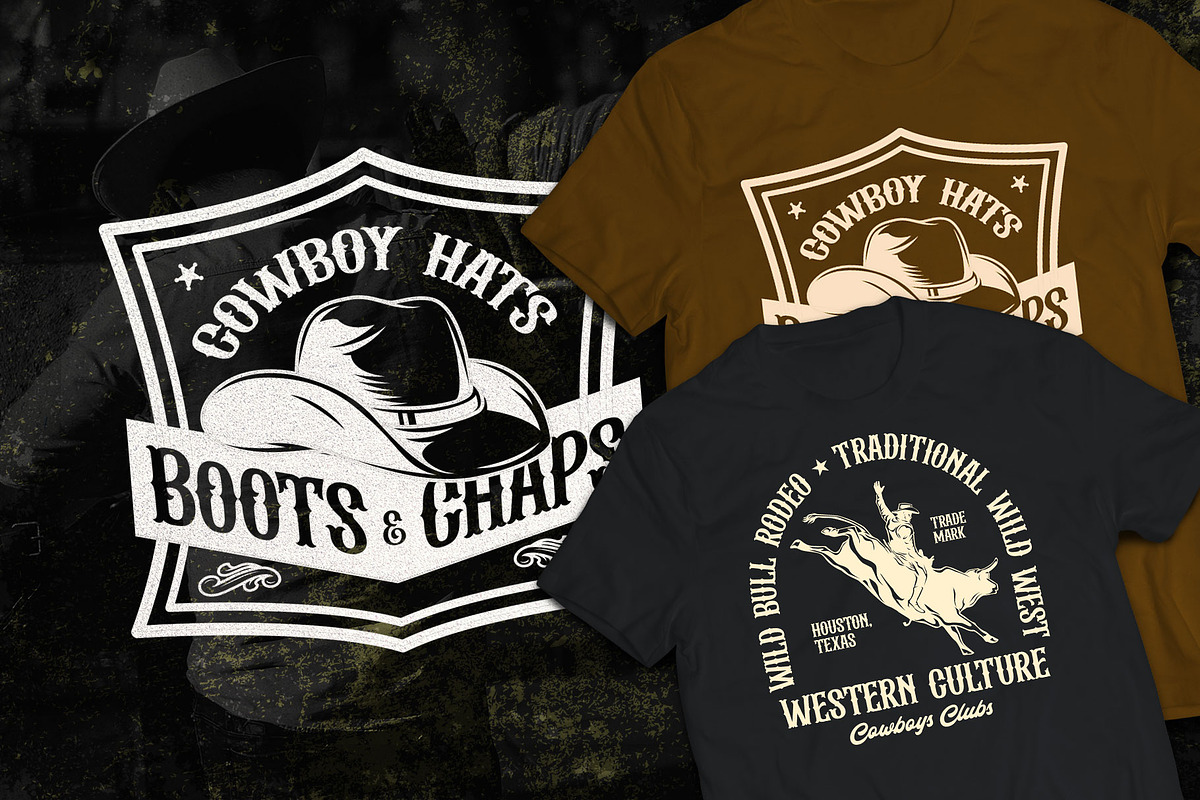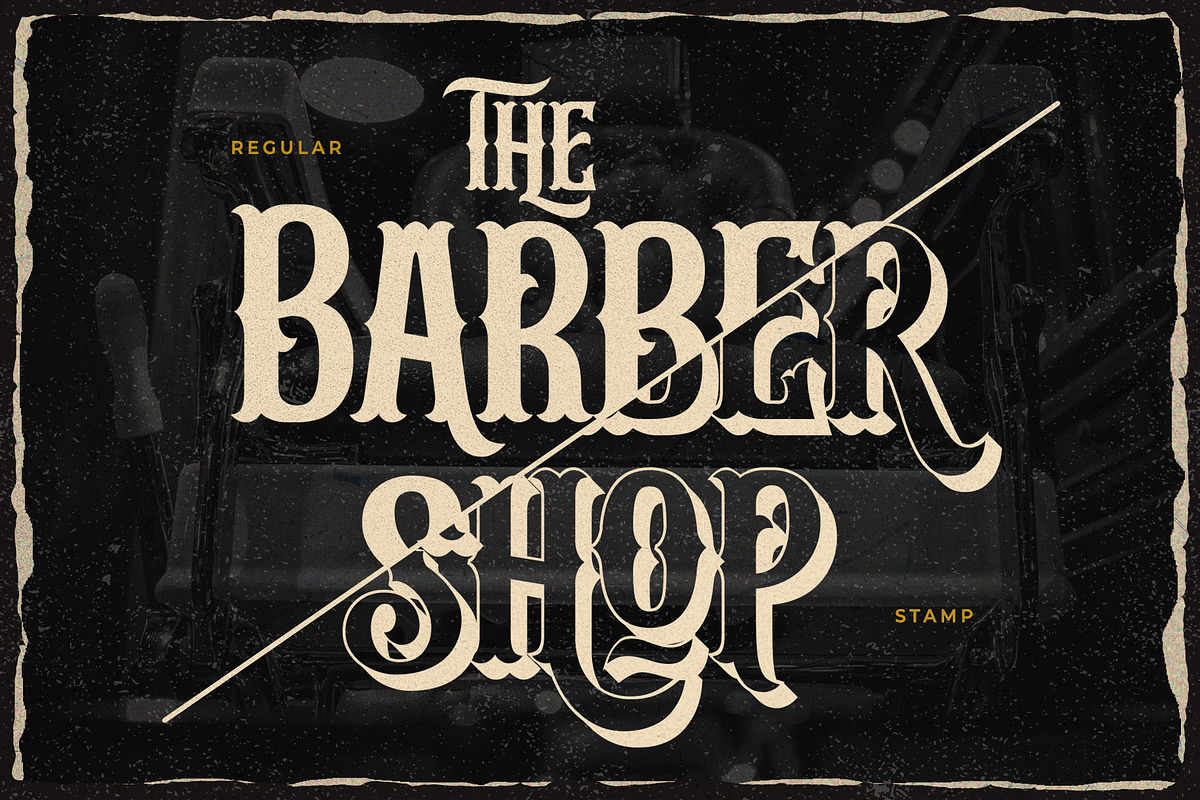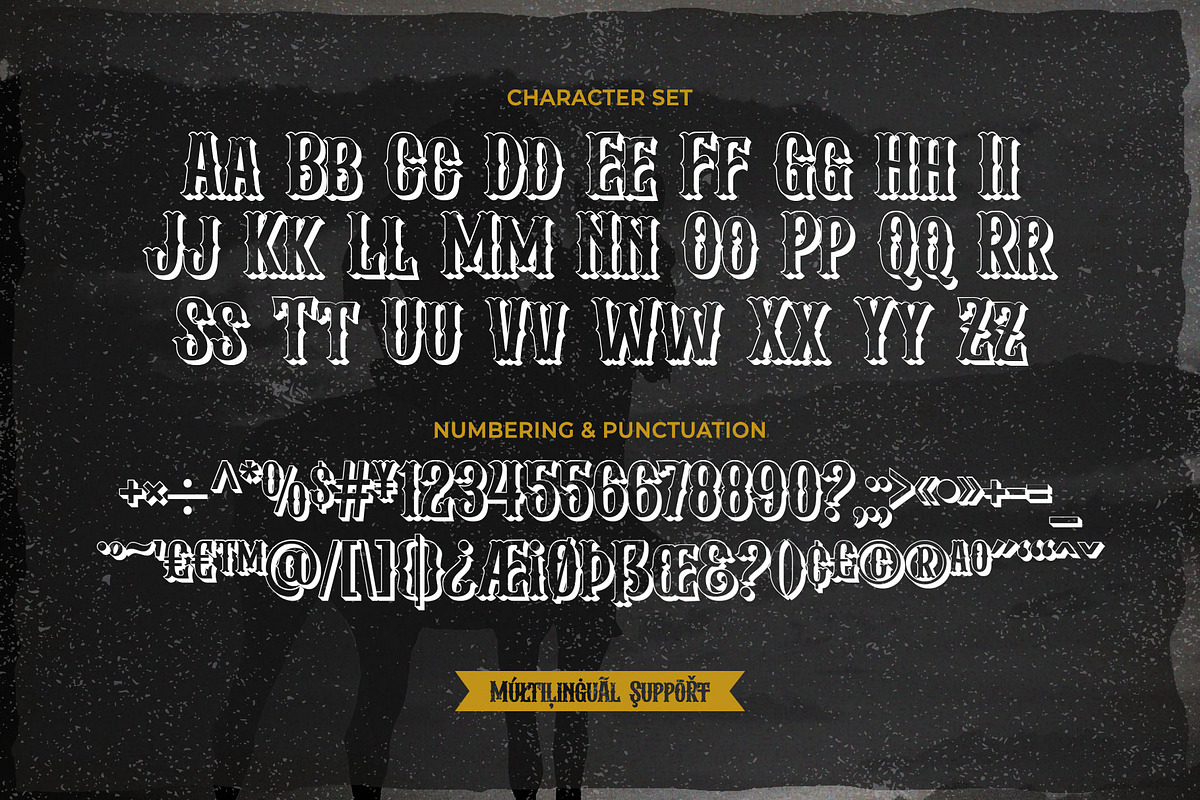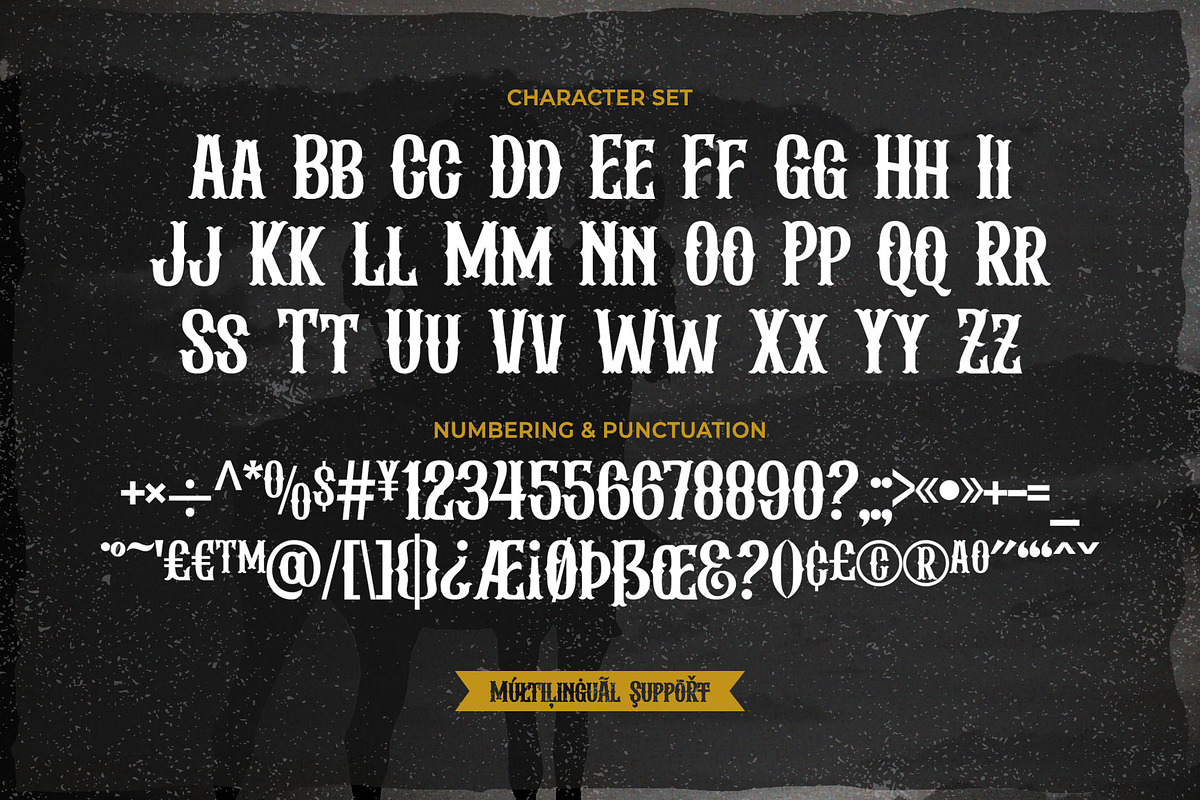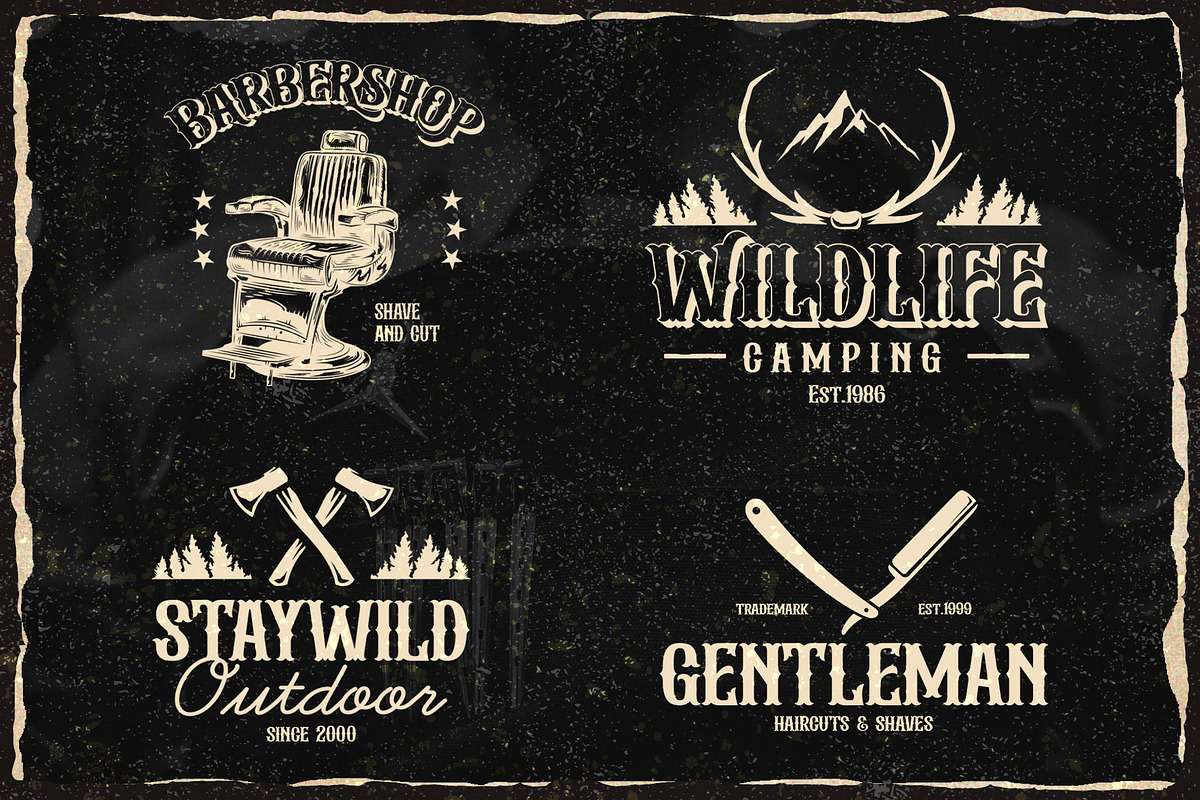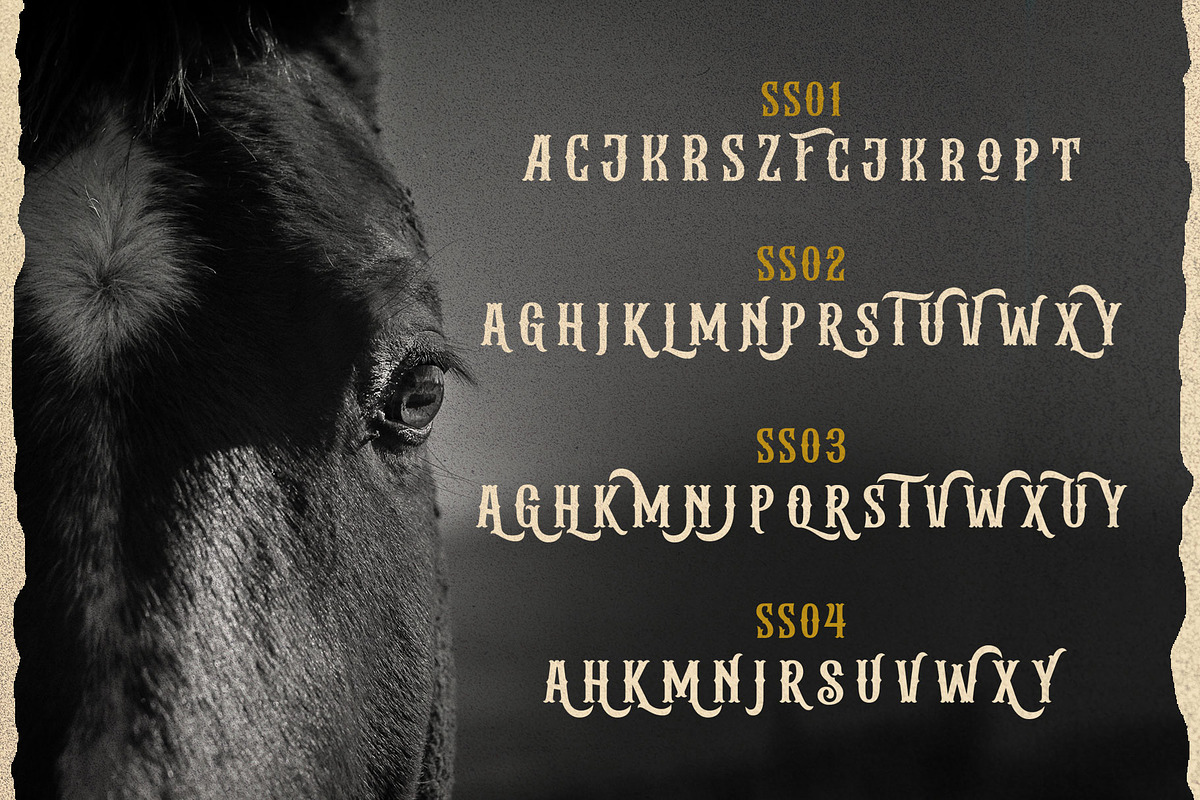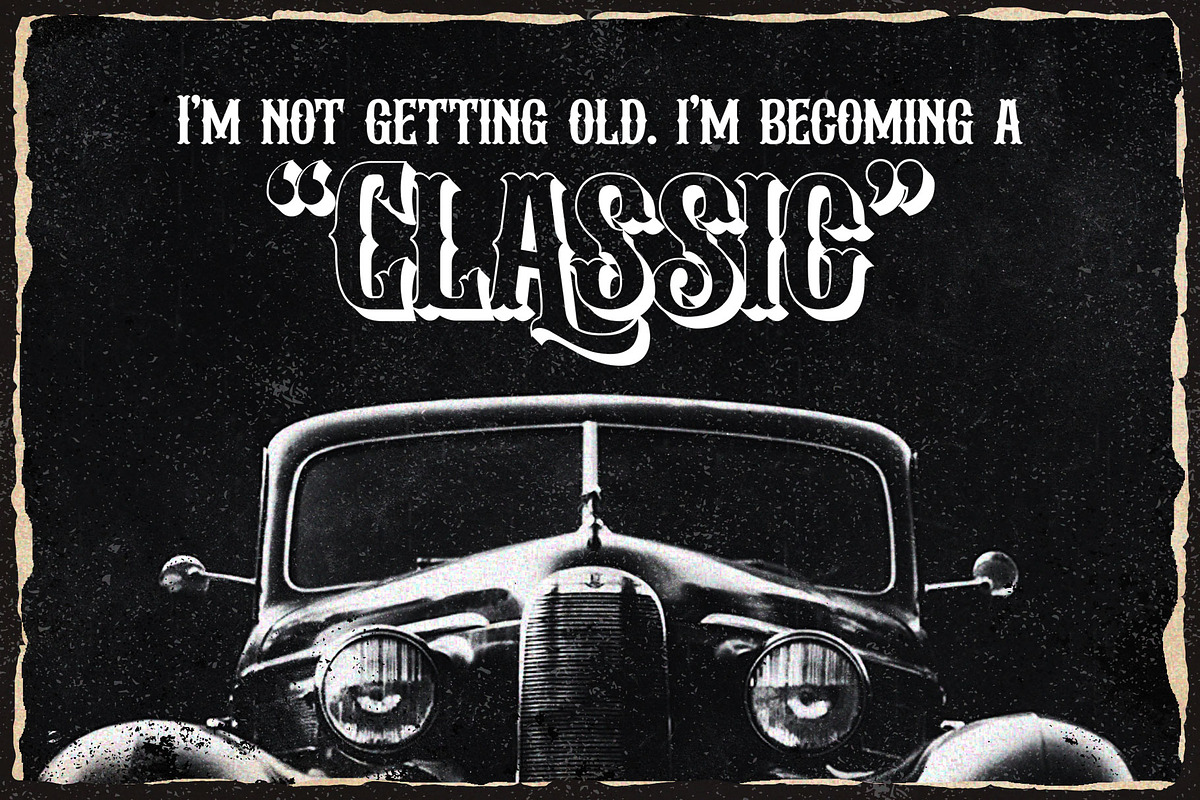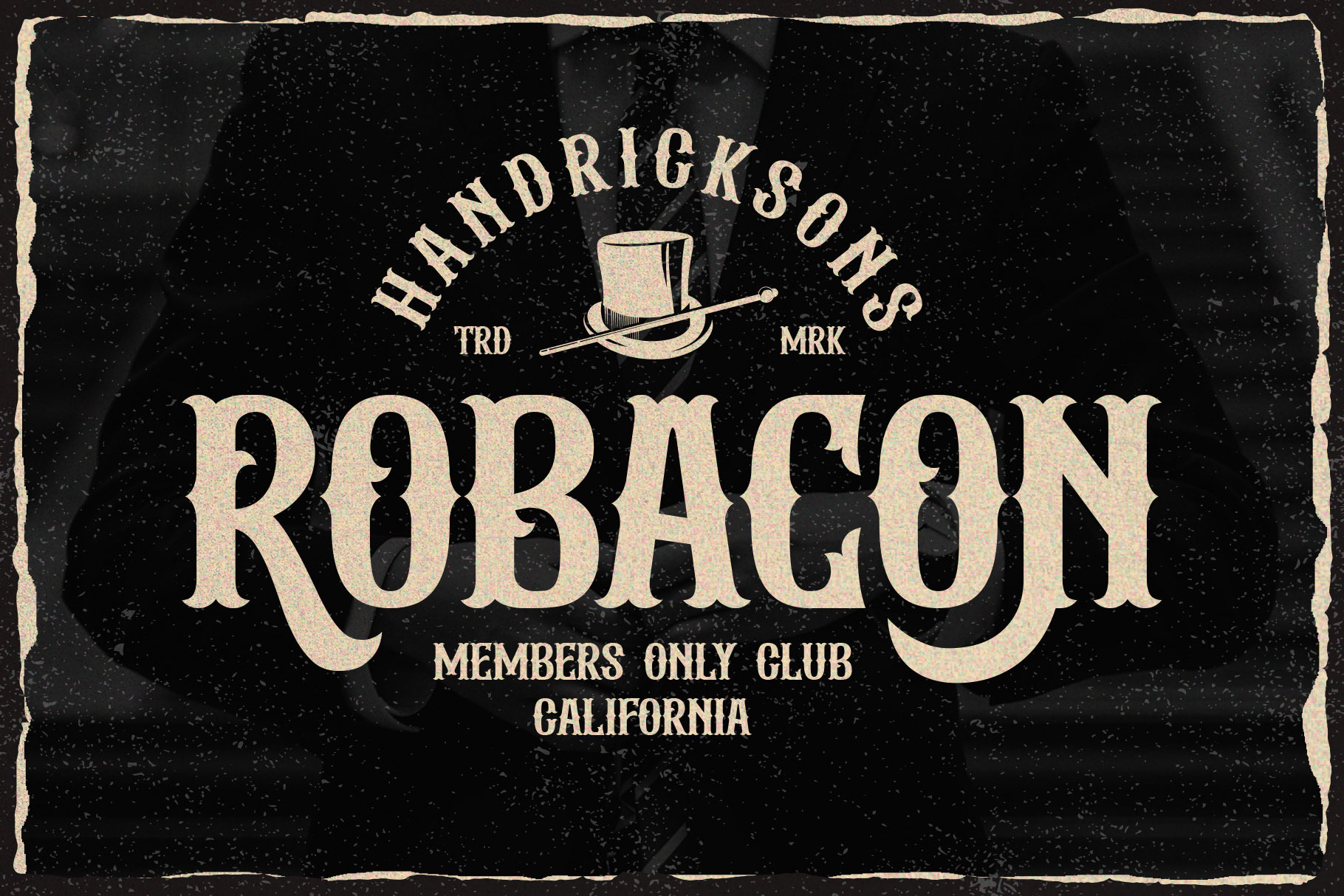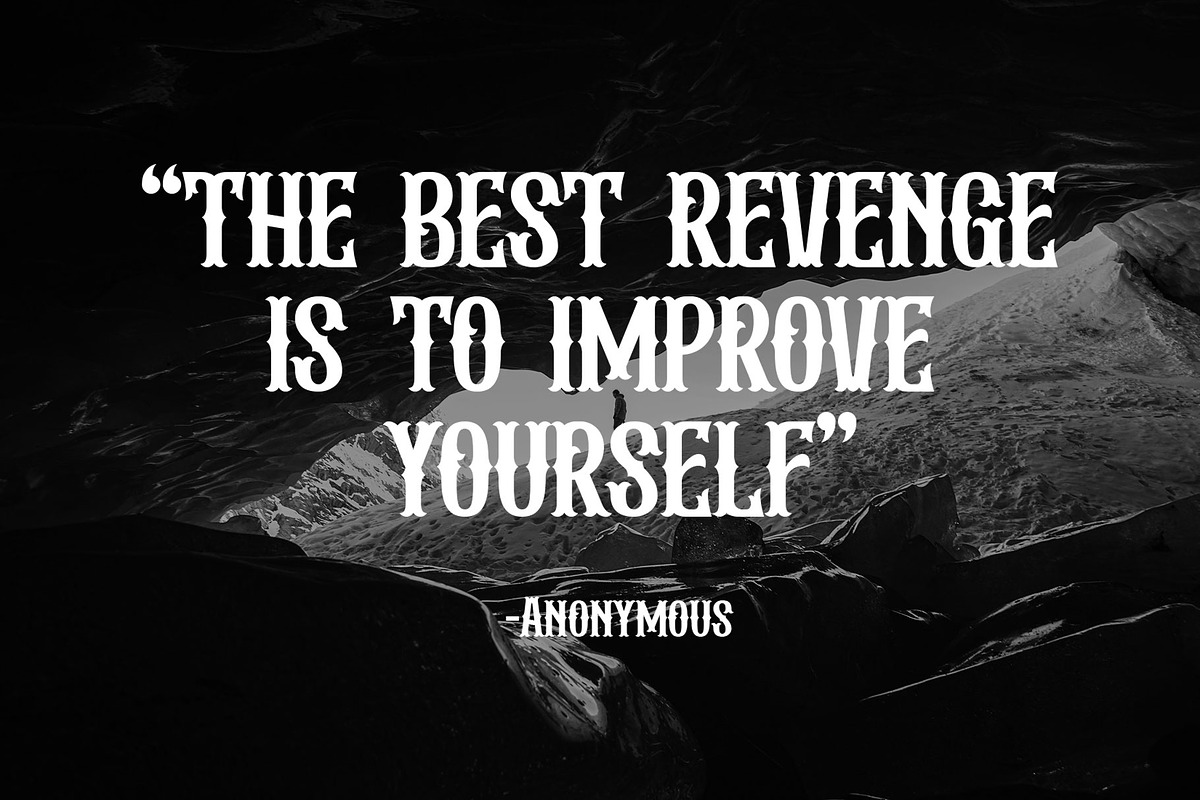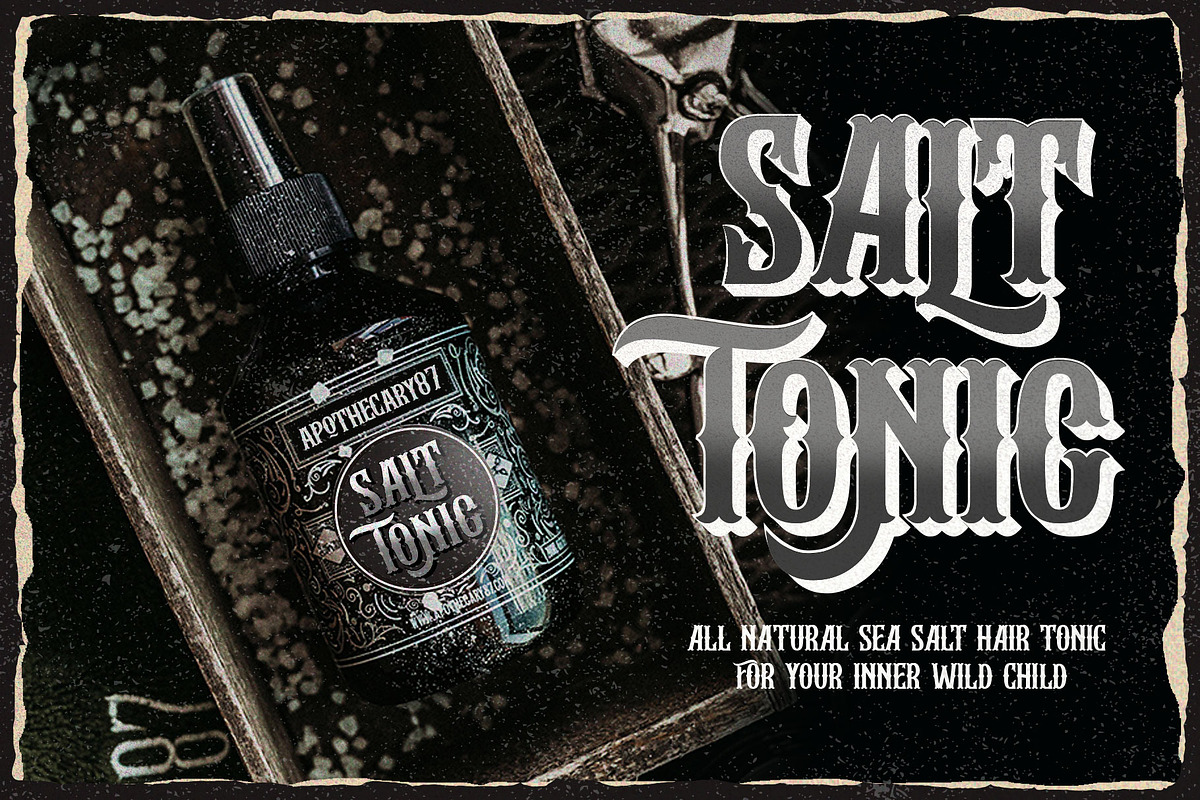
Albertson - Vintage Font
Albertson is strong retro font. Made with vintage references like an old school automotive, signage, cowboy, lumberjack, woodwork, and DIY handicraft. The modern western font that you can apply for your classic design such as the logo, logotype, label, packaging, signage, and more!
Albertson is an all-caps font with a strong design, equipped with 4 sets of alternates characters that you can mix and match to get the more solid typographic looks! Also complete with multilingual, packed in total 350+ glyphs.
Fonts featured :
- Smallcaps
- Stylistic set 01-04
- Accented characters : ÀÁÂÃÄÅÆÇÈÉÊËÌÍÎÏÐÑÒÓÔÕÖØÙÚÛÜÝÞßàáâãäåæçèéêëìíîïñòóôõöøùúûüýþÿ ĀāĂăĆćĈĉĊċČčĎďĐđĒēĖėĚěĜĝĠġĢģĤĥĦħĨĩĪīİIJijĴĵĶķĹĺĻļĽľĿŀŁłŃńŅņŇňŌōŐőŒœ ŔŕŖŗŘřŚśŜŝŞşŠšŢţŤťŦŧŨũŪūŮůŰűŴŵŶŷŸŹźŻżŽžǼǽǾǿȘșẀẁẂẃẄẅỲỳ